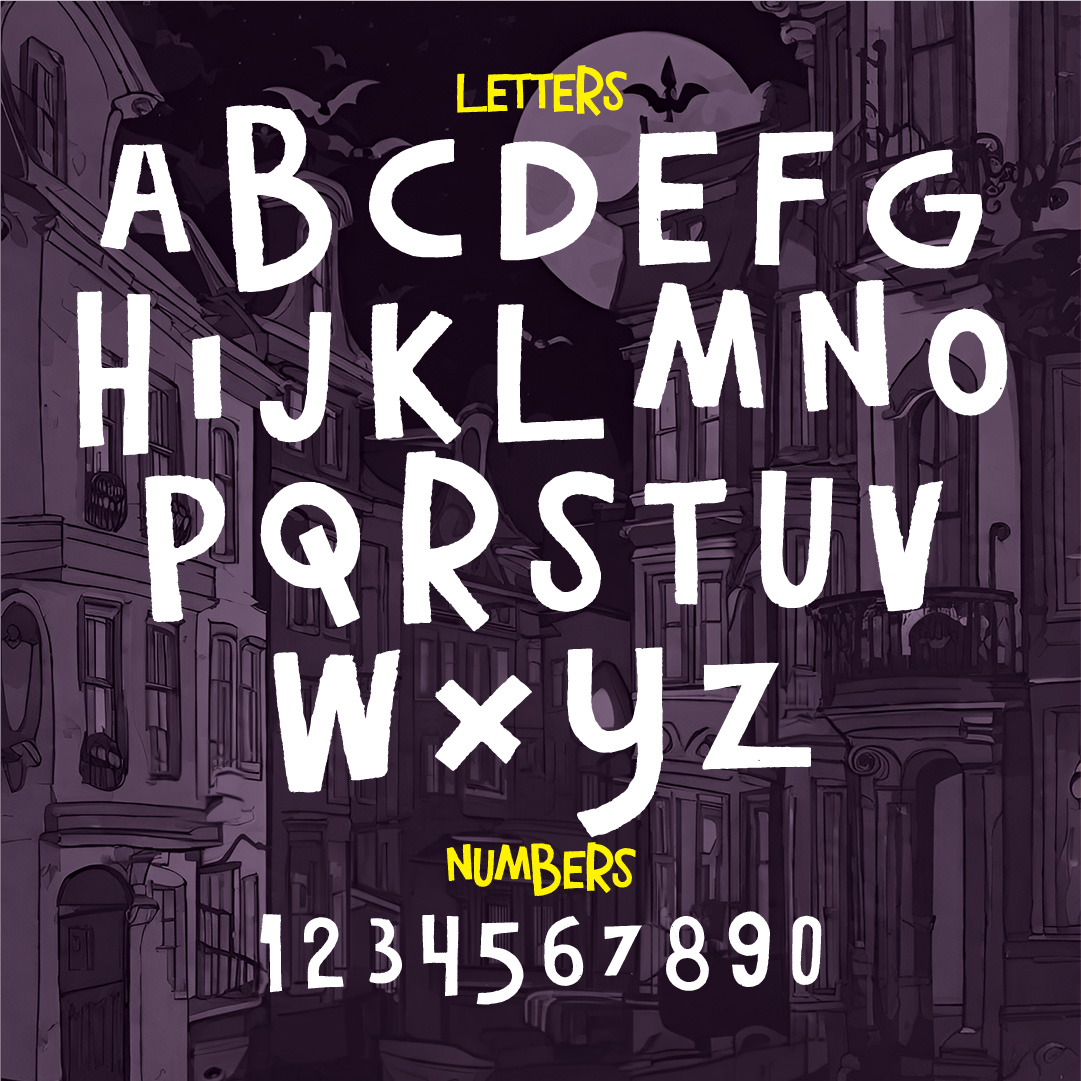
Halloween Parade
A vintage inspired, eerie font for fun and spooky spine-chilling designs.
Step right up, my frightful fiends! Introducing Halloween Parade – a ghoulishly delightful mid-century halloween typeface that will give your spooky designs a bone-chilling makeover. With its vintage charm and eerie elegance, this font is sure to send shivers down the spines of all who dare to lay eyes upon it.
Picture this: the moon shines brightly in the night sky as Halloween Parade adorns your invitations, posters, and party decorations. The twisted serifs and ghostly characters dance together like restless spirits, creating an atmosphere of spine-tingling enchantment. Your text comes alive with each blood-red stroke; it’s as if Dracula himself has taken hold of your design.
But beware! The magic doesn’t stop there. Halloween Parade‘s versatility is wickedly impressive – from haunted house flyers to potion labels or even sinister wedding invitations – this font transcends time and space to conjure up visions straight from the darkest depths of your imagination. So don’t be afraid; embrace the macabre and let Halloween Parade cast its spell on all who behold it!
Includes Uppercase (A-Z)
Yes
Includes Numerals (0-9)
Yes